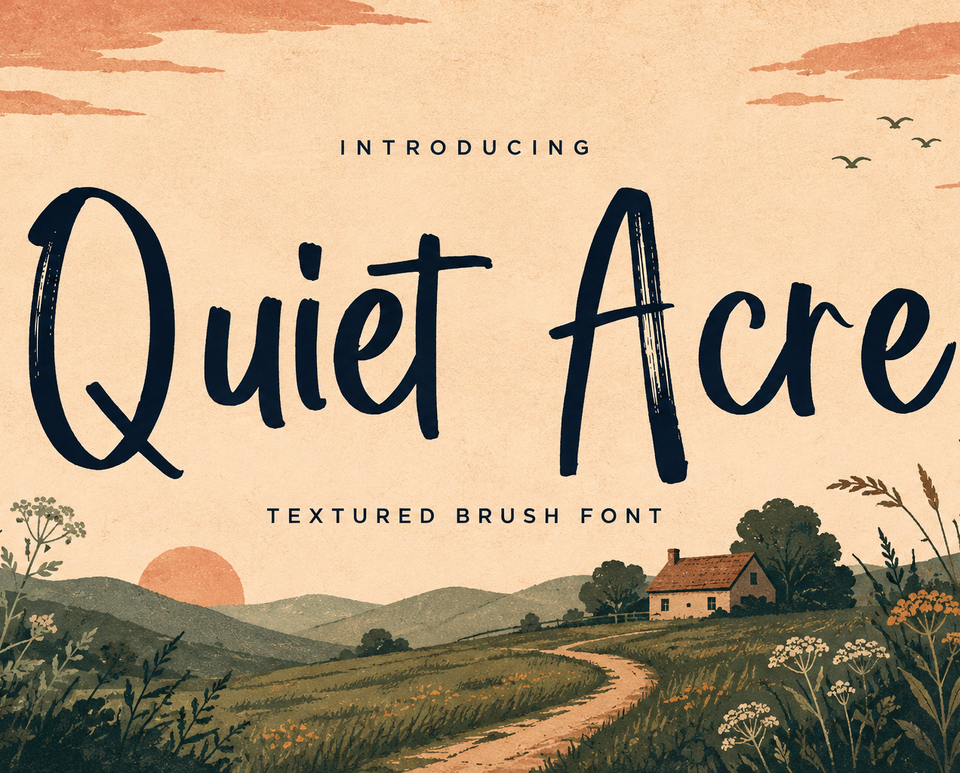
Quiet Acre — Textured Brush Display Font
Quiet Acre is a textured brush display font with an expressive, tactile voice for designs that need personality at a glance. Its rough brush character brings warmth and movement to titles, logos, packaging, and promotional artwork while keeping short words and phrases visually distinctive.
What it is: Quiet Acre is supplied as one Regular style. The PaperMoon 2026 commercial Pro package contains 240 glyphs and 243 mapped characters, covering Basic Latin, Latin-1, and one Latin Extended character. It includes the standard OpenType liga feature for standard ligatures, giving supported applications a little more natural flow where the font provides those substitutions. The package does not include a separate weight family or a kerning feature claim.
Key Features: The textured brush lettering is suited to display-size typography, expressive headlines, and memorable wordmarks. Standard ligatures are available through the OpenType liga feature in compatible software. Four practical file formats are included: OTF for desktop design workflows, TTF for broad desktop compatibility, WOFF for web projects, and WOFF2 for modern web delivery. The single Regular style makes Quiet Acre easy to use as a focused accent font, headline face, or compact branding asset.
Applications: Use this handwritten brush font for logo concepts, product packaging, retail labels, branding systems, magazine and editorial headlines, social media graphics, posters, campaign artwork, and expressive words over photographic or illustrated backgrounds. Its organic display style also works for wedding stationery, invitations, menus, signage, apparel graphics, quote designs, and other projects where a handmade visual impression is useful. For longer paragraphs or small interface text, pair it with a more restrained companion typeface and test legibility at the final size.